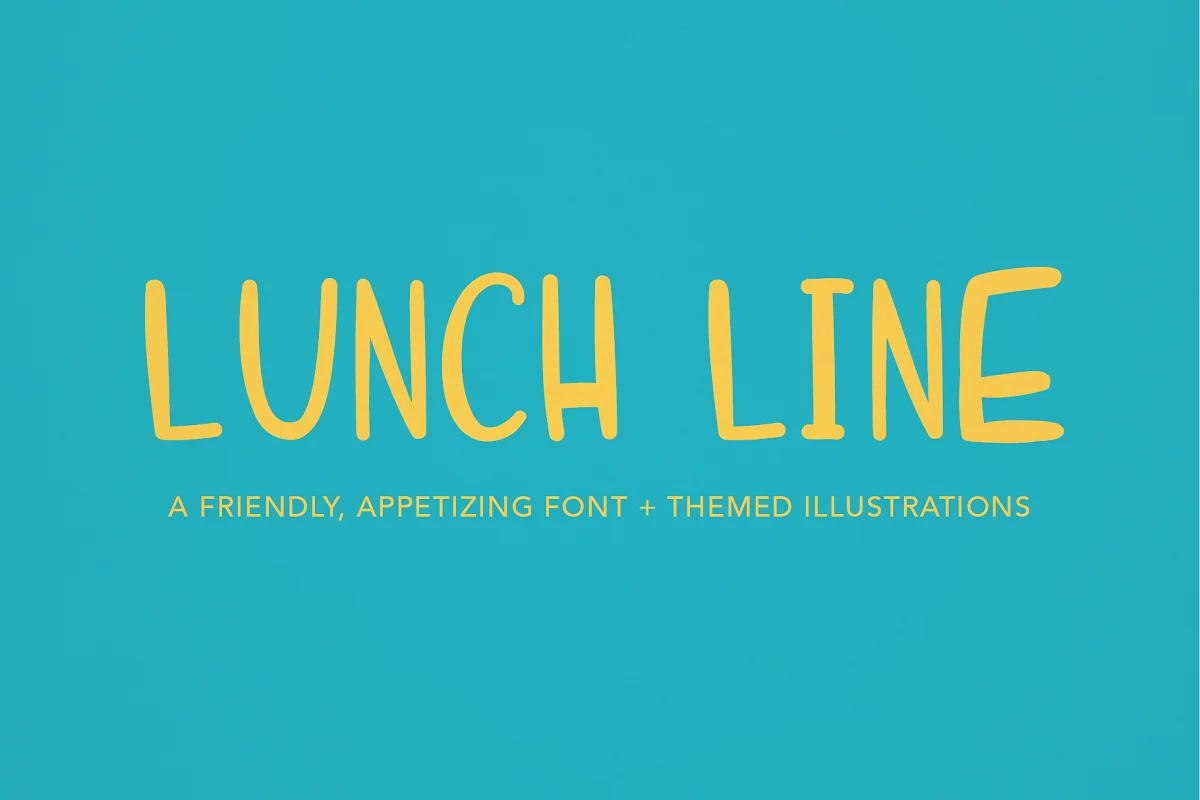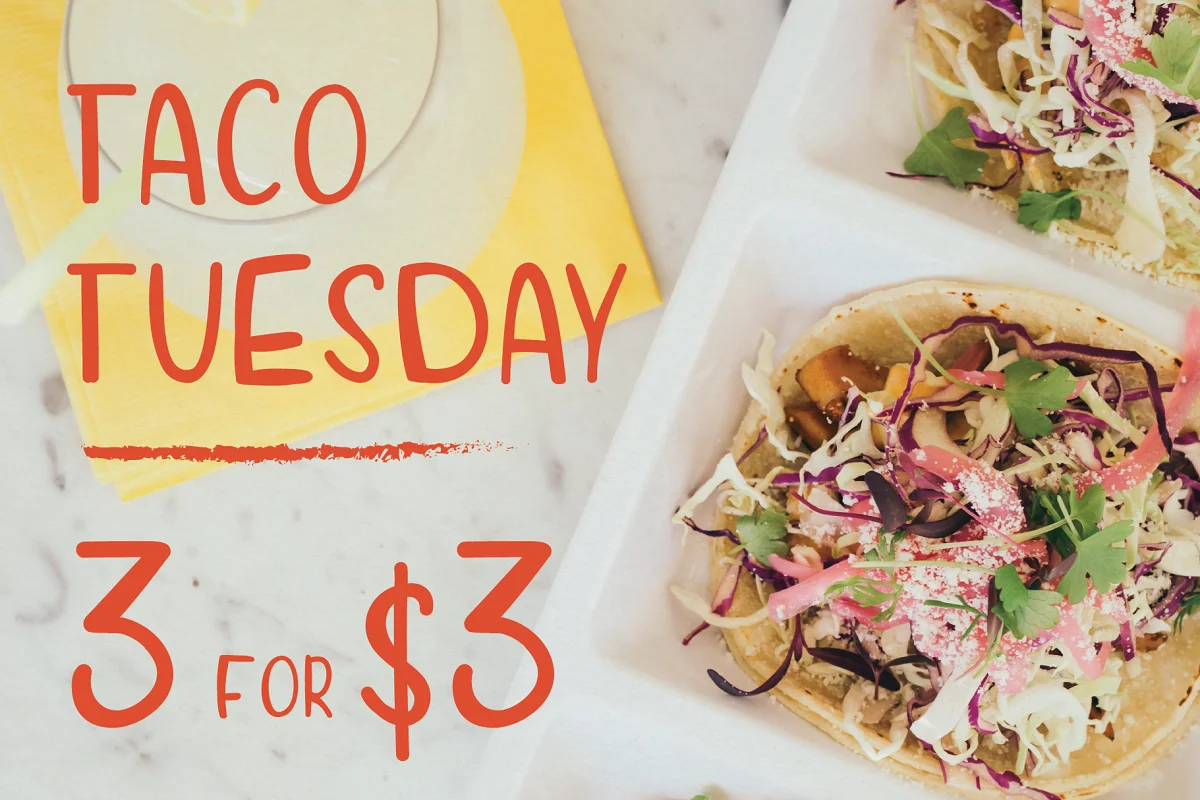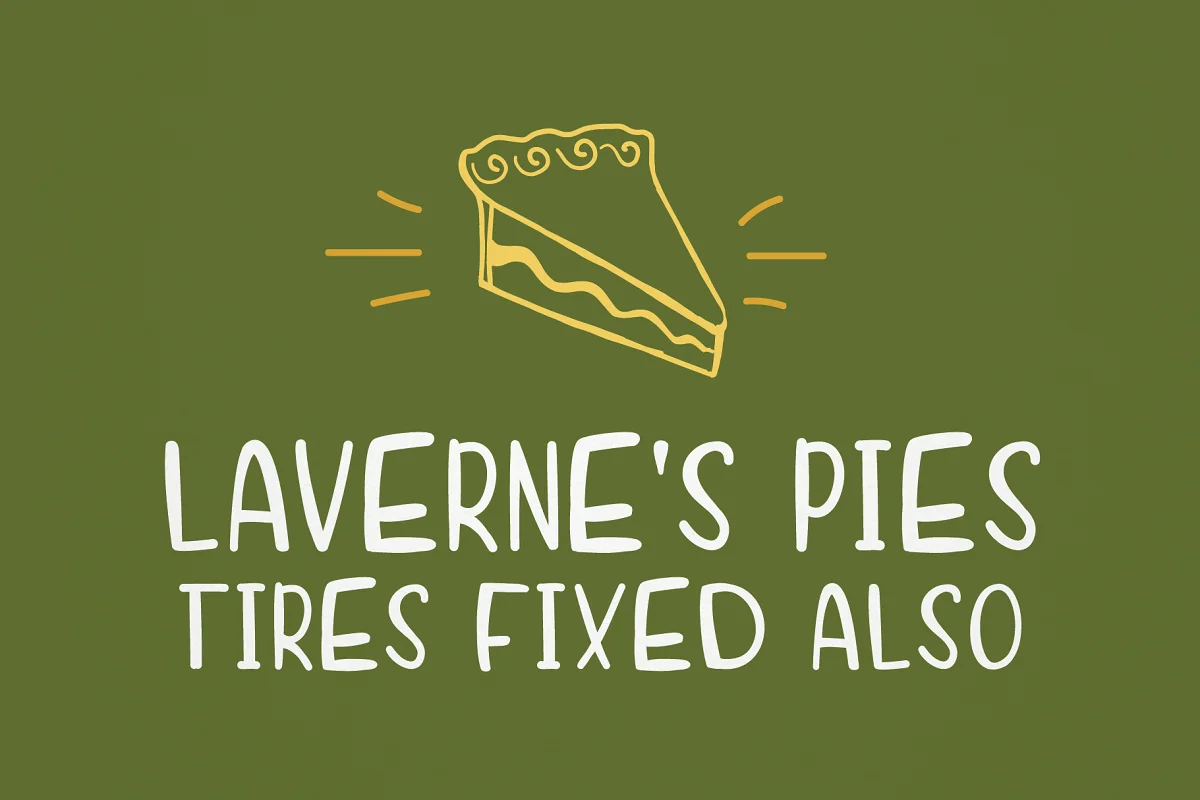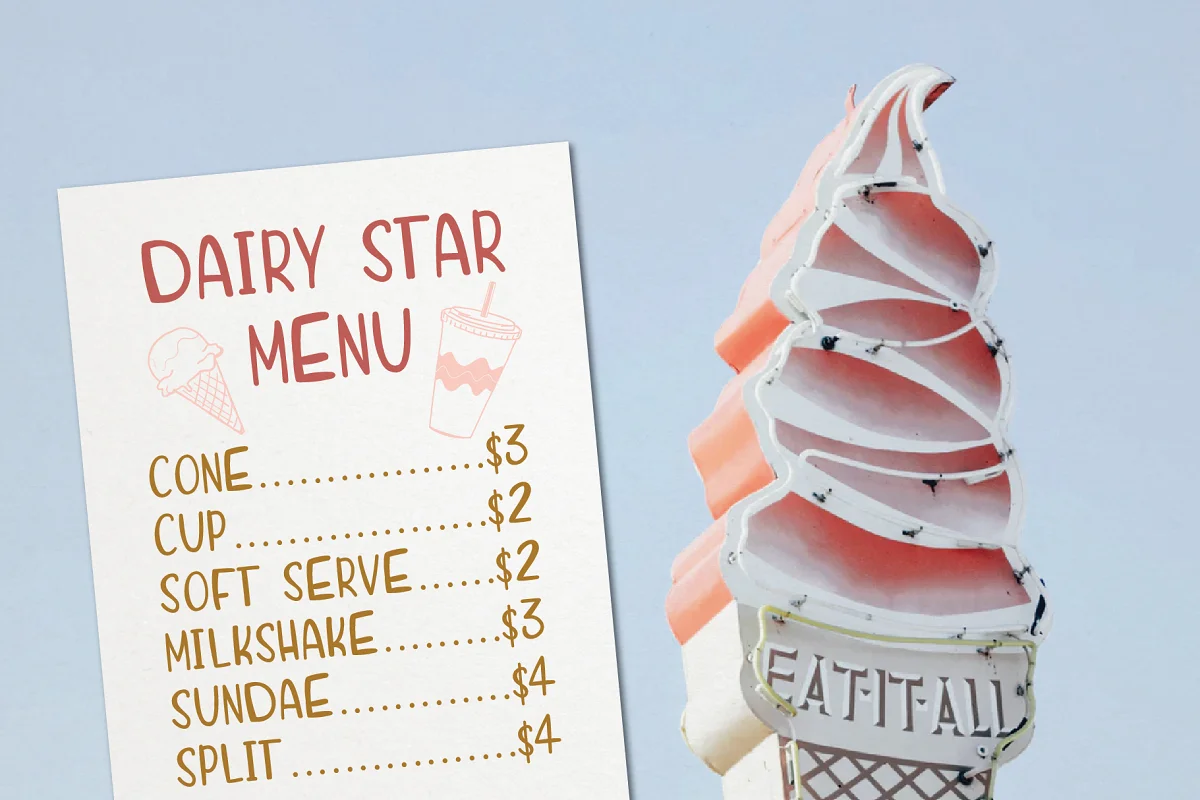
About the Lunch Line Font
This is Lunch Line, a friendly, appetizing font. Lunch Line is ideal for digital illustrations, menus, blogs, social media graphics, and more.
Enjoy the themed illustration set as well!
- Capital and lowercase letters
- Numbers and punctuation